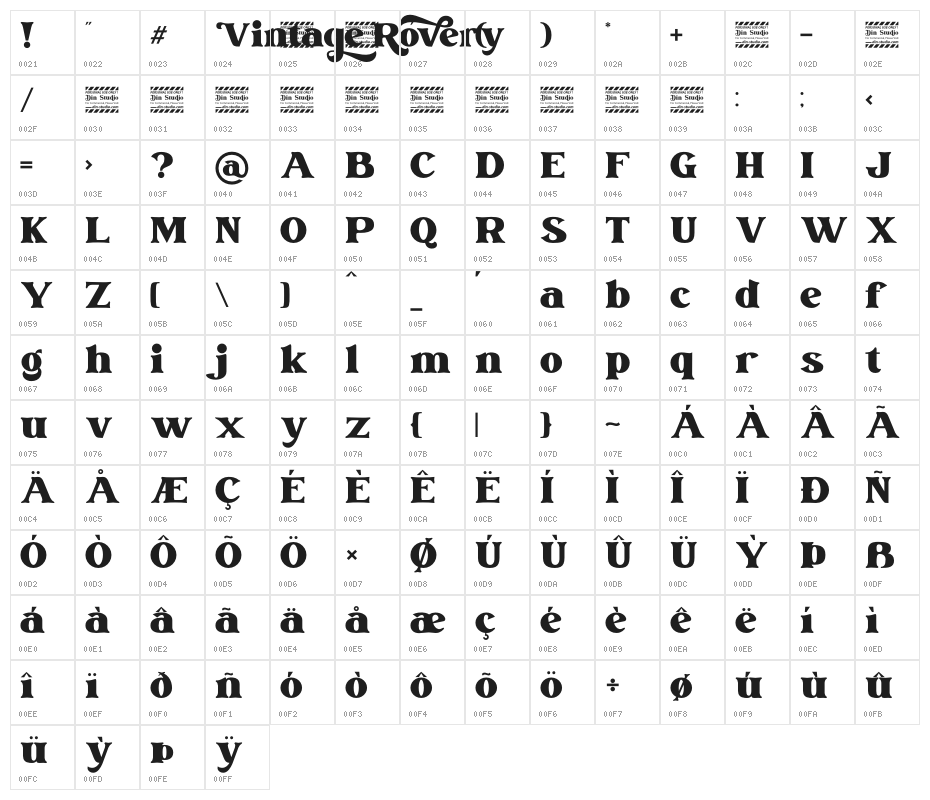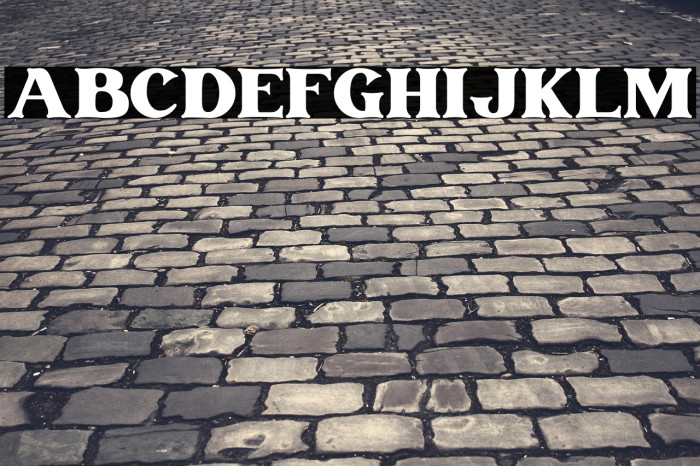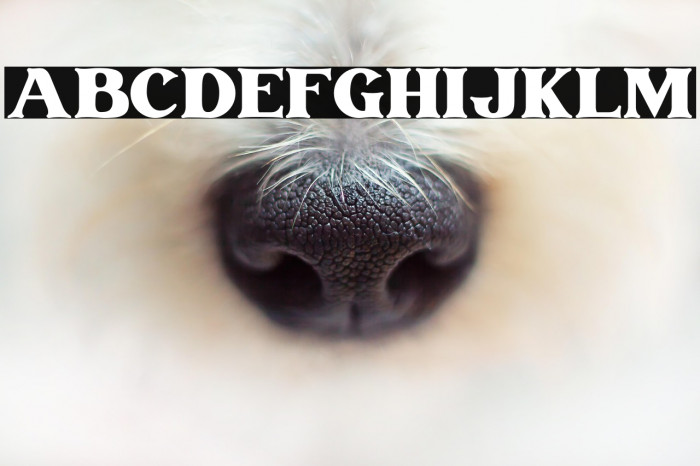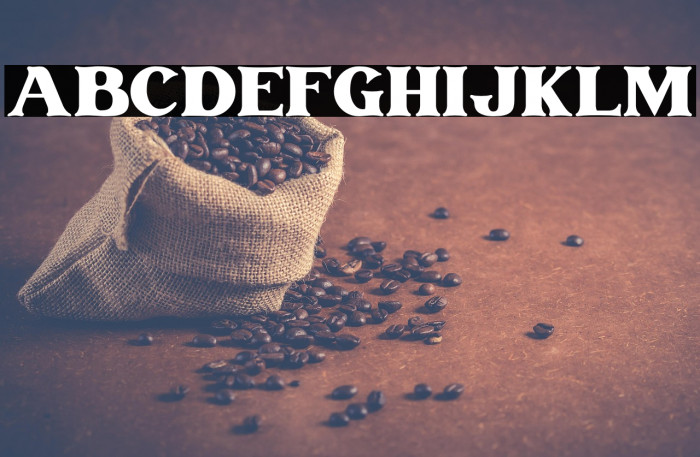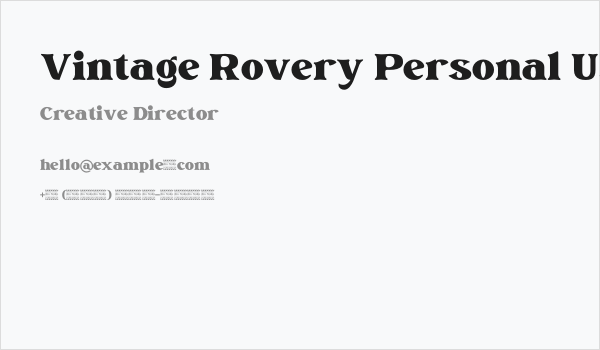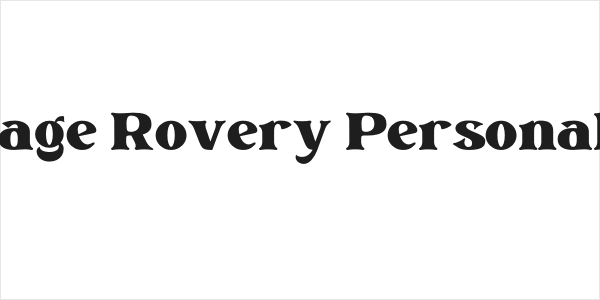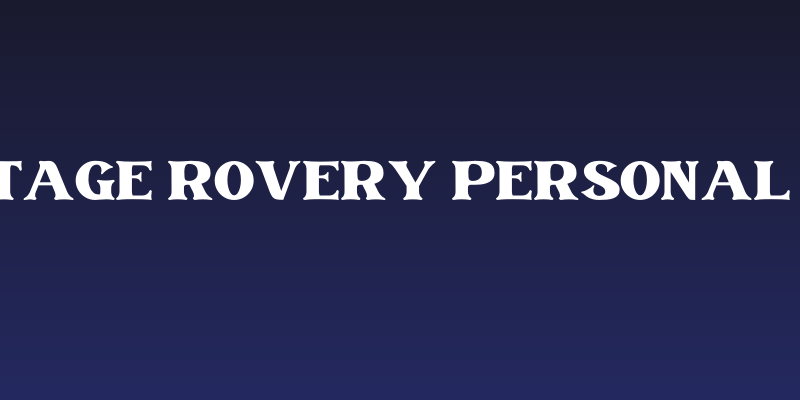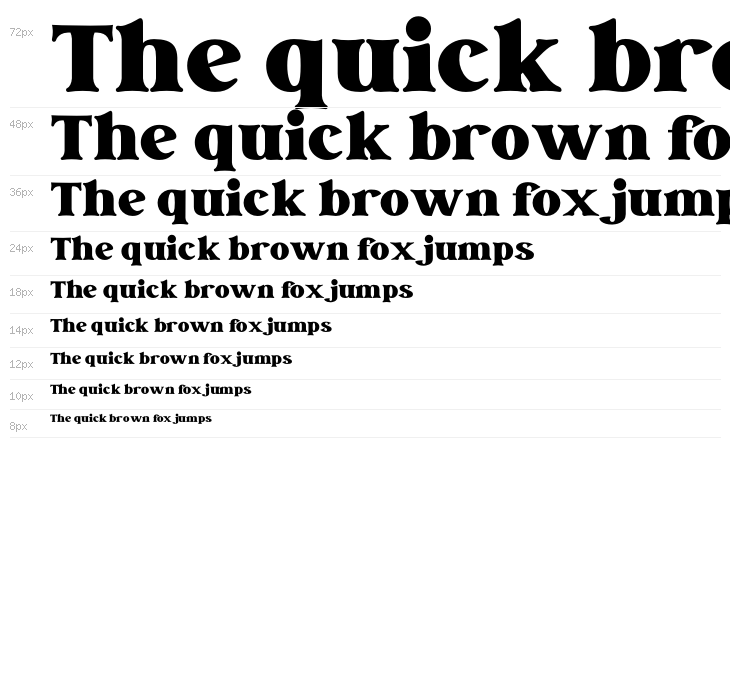
Vintage Rovery Personal Use Font
Vintage Rovery Personal Use Description
This font features a bold and dramatic style with a vintage flair. The uppercase letters are robust and commanding, with thick strokes and subtle curves that add a touch of elegance. The lowercase letters maintain a consistent weight, offering a harmonious balance between the characters. The numerals are equally bold, ensuring visibility and impact. Special characters are designed with the same attention to detail, making them suitable for decorative purposes. The overall design is reminiscent of classic serif fonts but with a modern twist, making it versatile for various applications.
| Proposed Projects | Ideal for vintage-themed designs, posters, branding, and editorial headlines. |